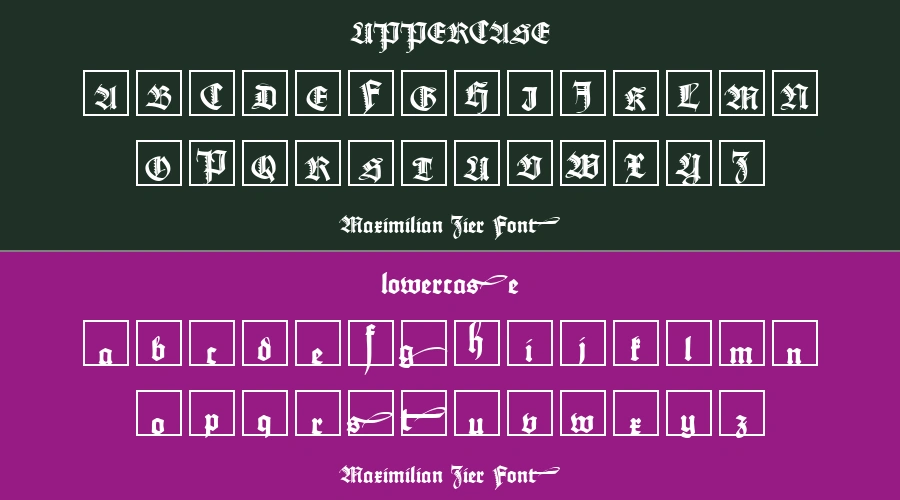
About Maximilian Zier Font
Maximilian Zier Font represents a sophisticated approach to type design, balancing exaggerated serifs with technical precision. Perfect for annual reports, this font family showcases impressive consistency and professional standards throughout its character set. Designers appreciate its versatility and reliability.
Designers will appreciate nuanced touches including assertive angles and classic proportions, adding sophistication to any project. These features become apparent in event graphics, where headline impact matters most. The careful treatment of crossbar height and emotional resonance ensures optimal performance.